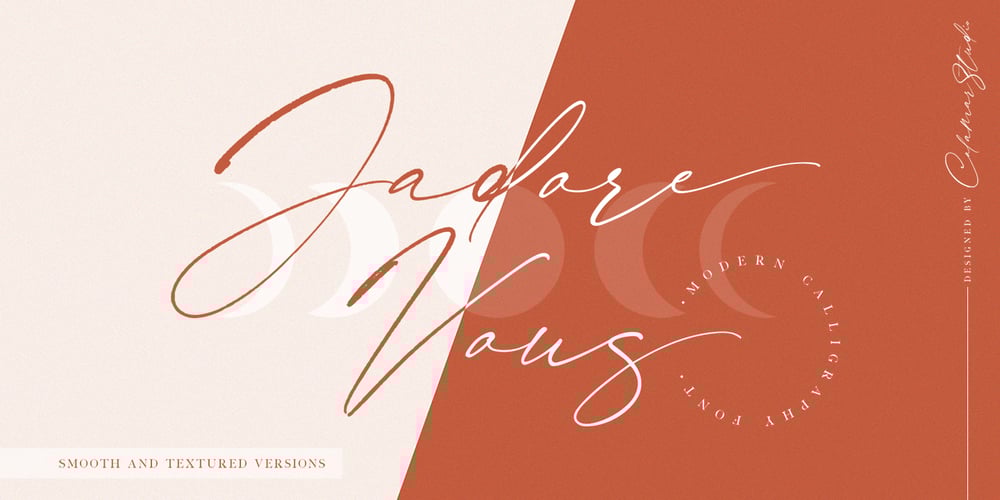
Jadore Vous Font Family was designed by Oksana Petrenko and published by Calamar. Jadore Vous contains 2 styles and family package options. Jadore Vous is available in two versions: smooth and textured. This font particularly well suited for wedding invitations, cards, signature logos and other branding projects.Jadore Vous includes Upper and Lowercase Basic Characters, Numbers and Punctuation. It also includes large selection of ligatures and lowercase alternates that make your type look more like natural handwriting rather than a font.Jadore Vous is available for Western European, Central European and South Eastern European Languages. You can check your language typing characters in text box above.